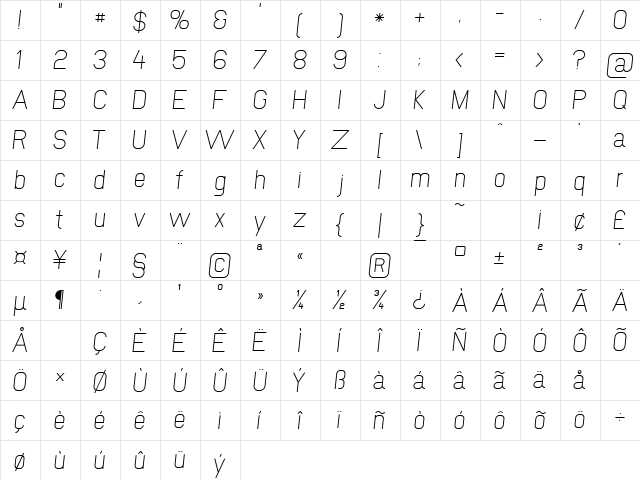
NewMedia Italic
Design Context for NewMedia Typeface
NewMedia is a composed and adaptable typeface that performs quietly and consistently across a wide range of design contexts. The slanted form adds forward momentum and visual energy.
Pro Tip: Use NewMedia for emphasis, pull quotes, and subheadings where its slanted energy can add rhythm to the layout.